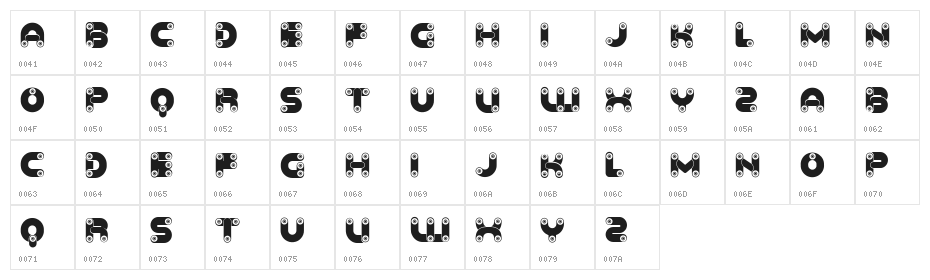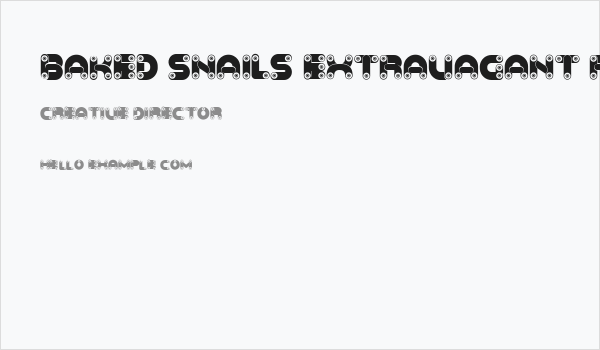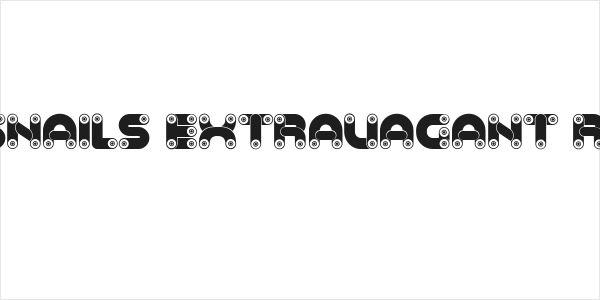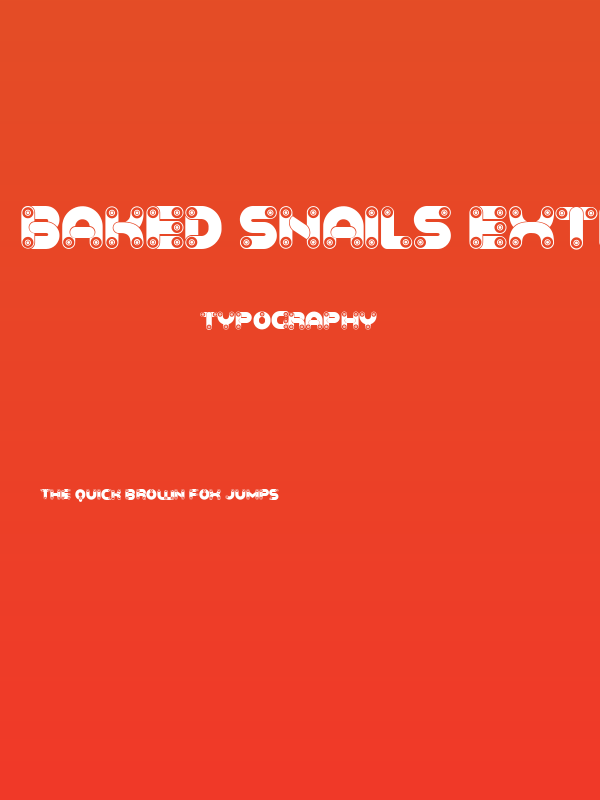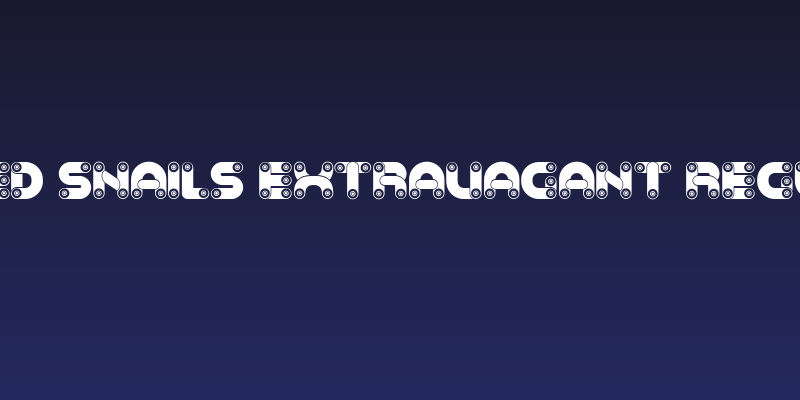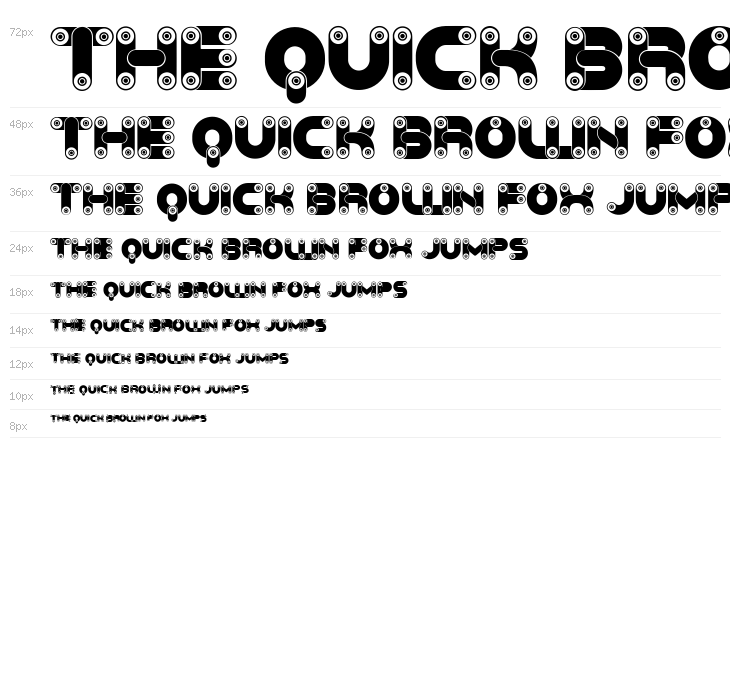
Baked Snails Extravagant Regular Font
Baked Snails Extravagant Regular Description
This font features a unique and playful design, characterized by its bold and rounded letterforms. Each character is adorned with circular embellishments that resemble mechanical gears or snail shells, adding an extravagant and whimsical touch. The font maintains a consistent stroke thickness throughout, creating a harmonious and balanced appearance. Its decorative elements make it stand out, while the overall structure remains clear and legible. The font's distinct style is ideal for projects that require a fun and eye-catching aesthetic.
| Proposed Projects | Ideal for children's book covers, playful branding, creative posters, and unique event invitations. |